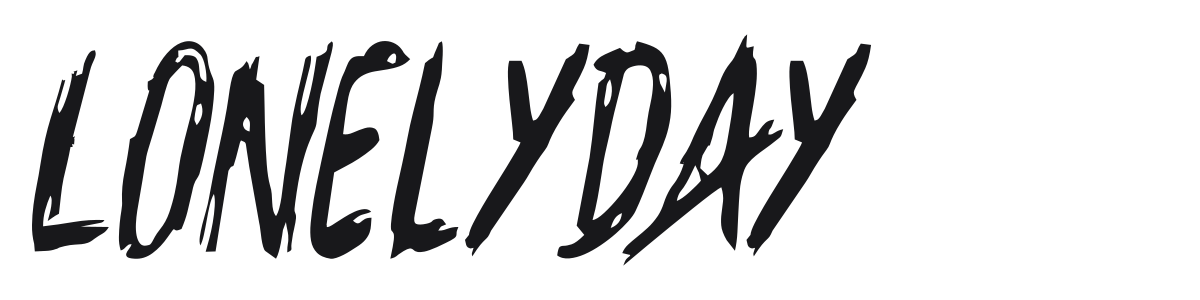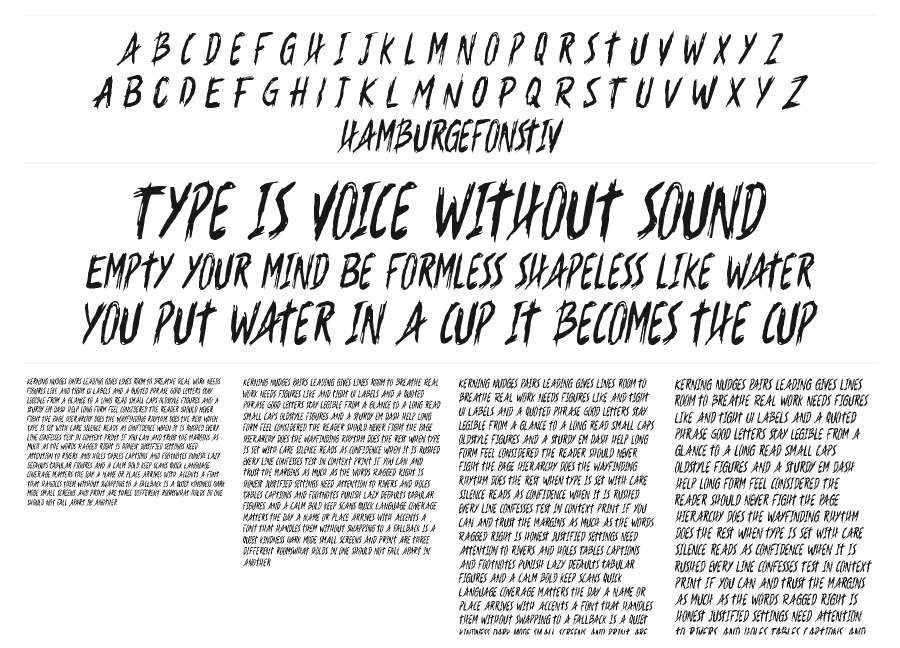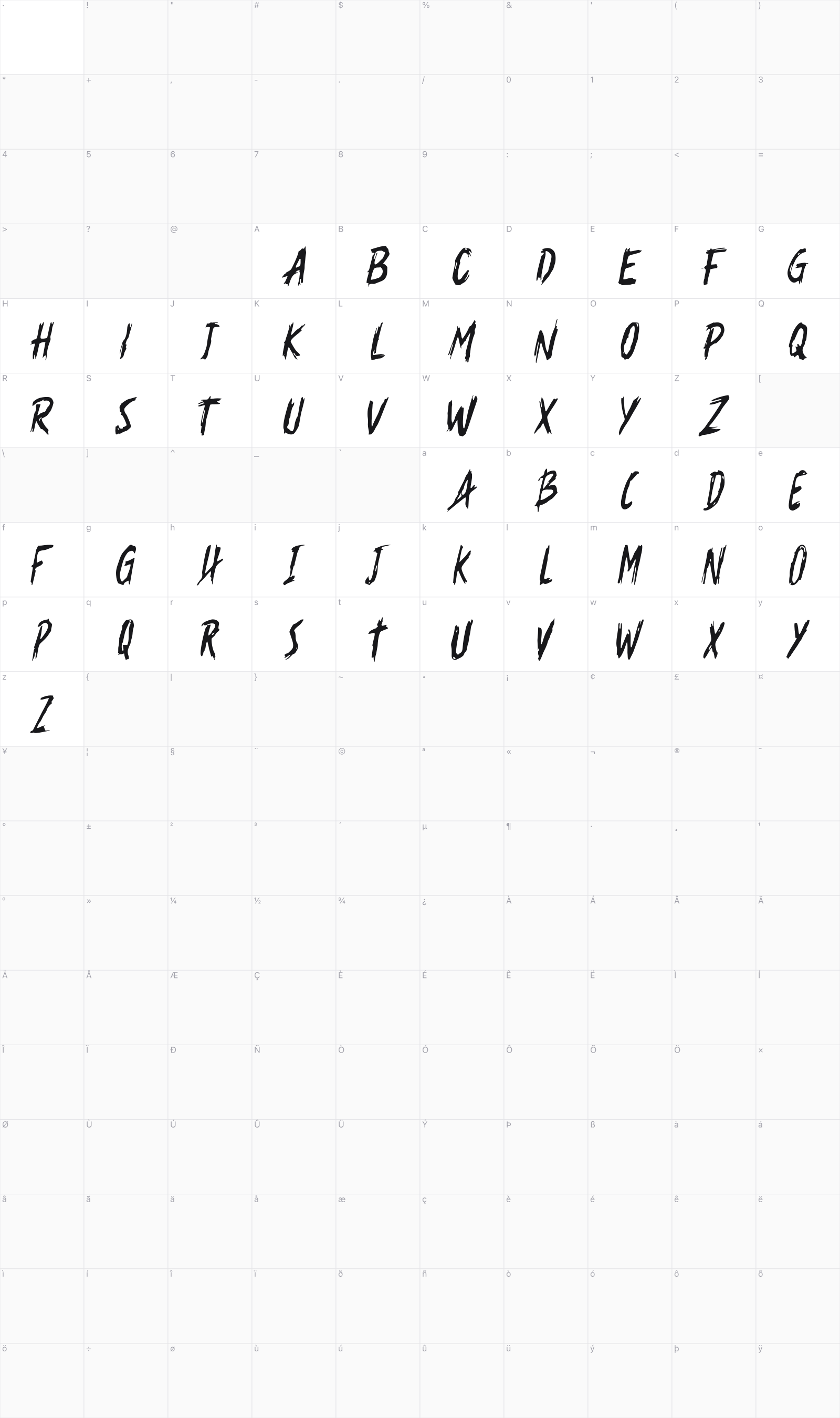
Lonelyday
Lonelyday is a rough, heavily distressed brush script with a raw, almost violent energy. Jagged stroke edges and splintered terminals give every character a hand-torn quality that sits somewhere between calligraphy and destruction. Strong choice for band logos, horror titles, or any project that needs visible tension.